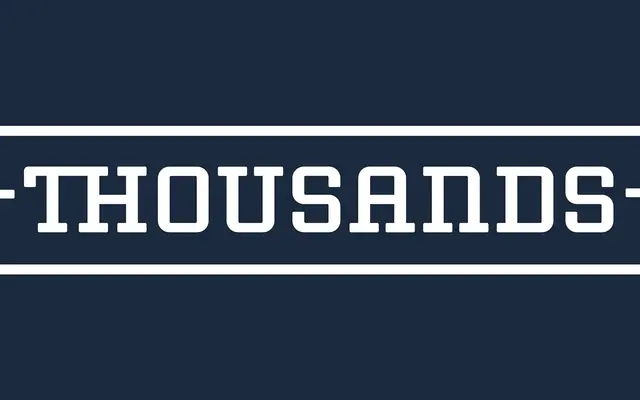
Thousands specimen from Dharma Type
A slab serif built around an extensive OpenType alternate system, allowing serifs, small caps and ligatures to shift the texture of a setting considerably.
The family draws its typographic range not from a large weight stack but from OpenType features: alternates reshape individual serifs, characters convert to small caps, and ligatures adjust the rhythm of running text. This makes Thousands unusual among slab serifs in that much of its expressive range is encoded within a compact set of fonts. Suited to editorial and branding work where typographic detail matters more than sheer weight variety.
Explicitly described as a slab serif typeface; the extensive OpenType alternate system, including small caps and ligatures, places it firmly in the slab category with a versatile, system-oriented approach.